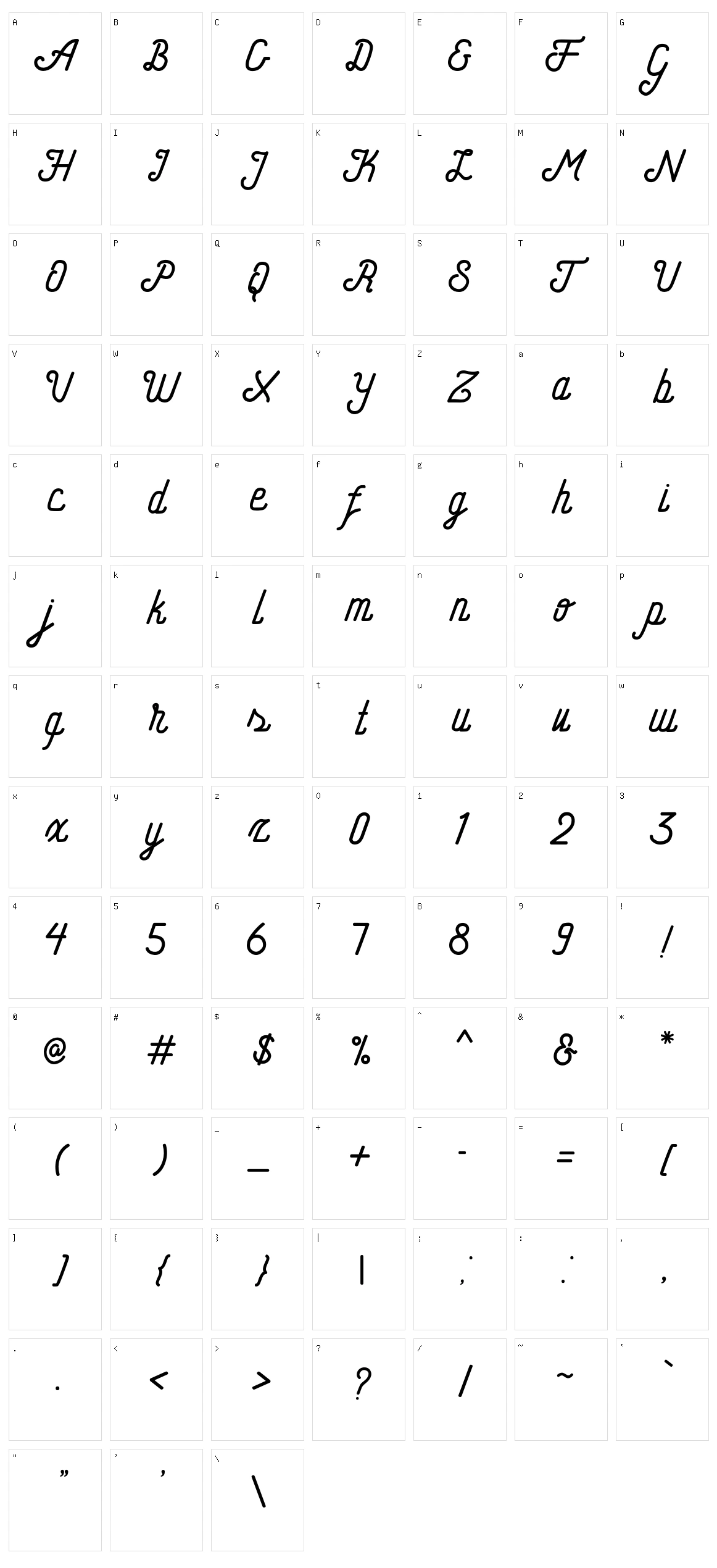
Hometown Script Free Font
This font Vintage Calligraphy style, Suitable for design, element design, wedding, event, t-shirt, logo, badges, sticker, and awesome work, etc...